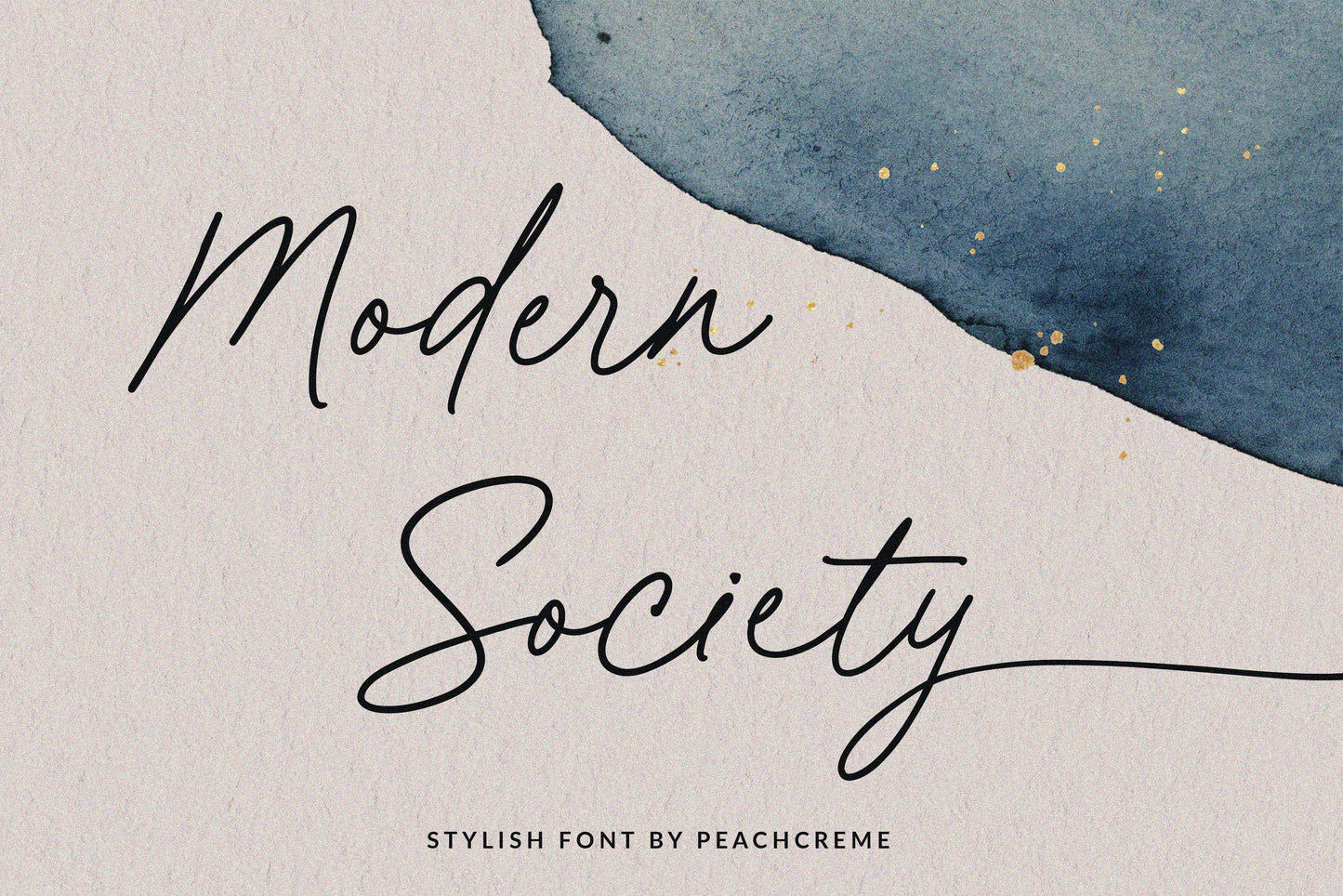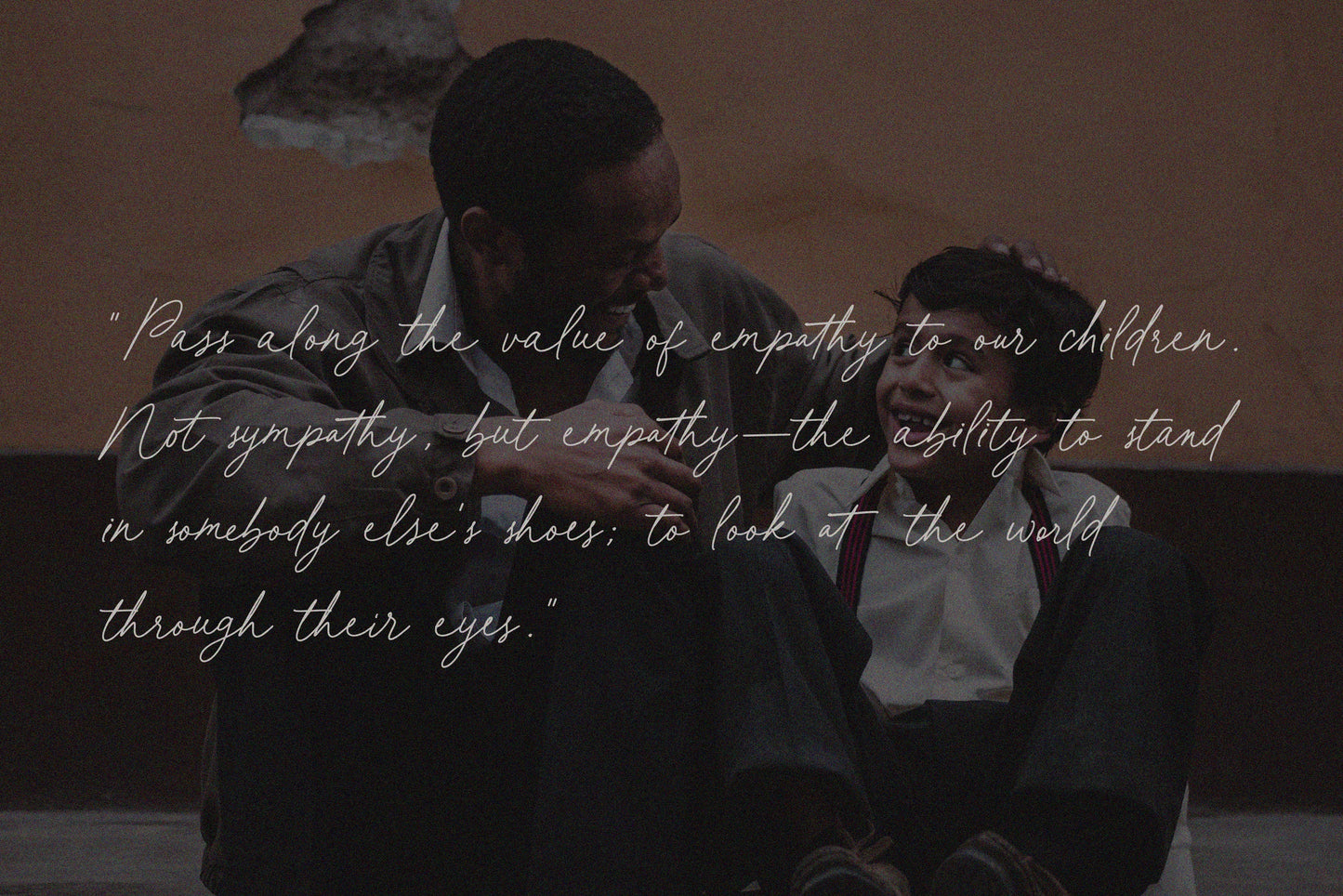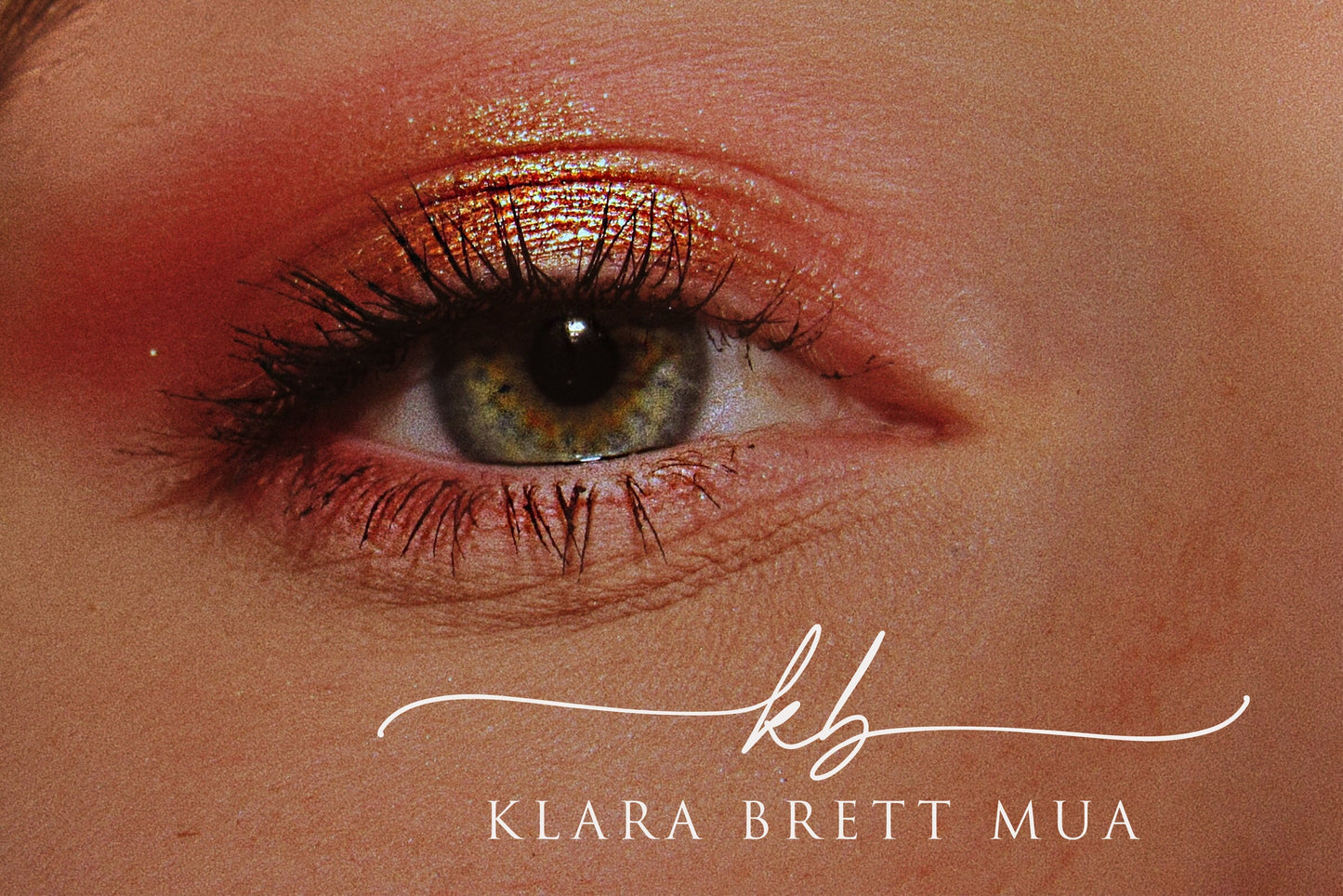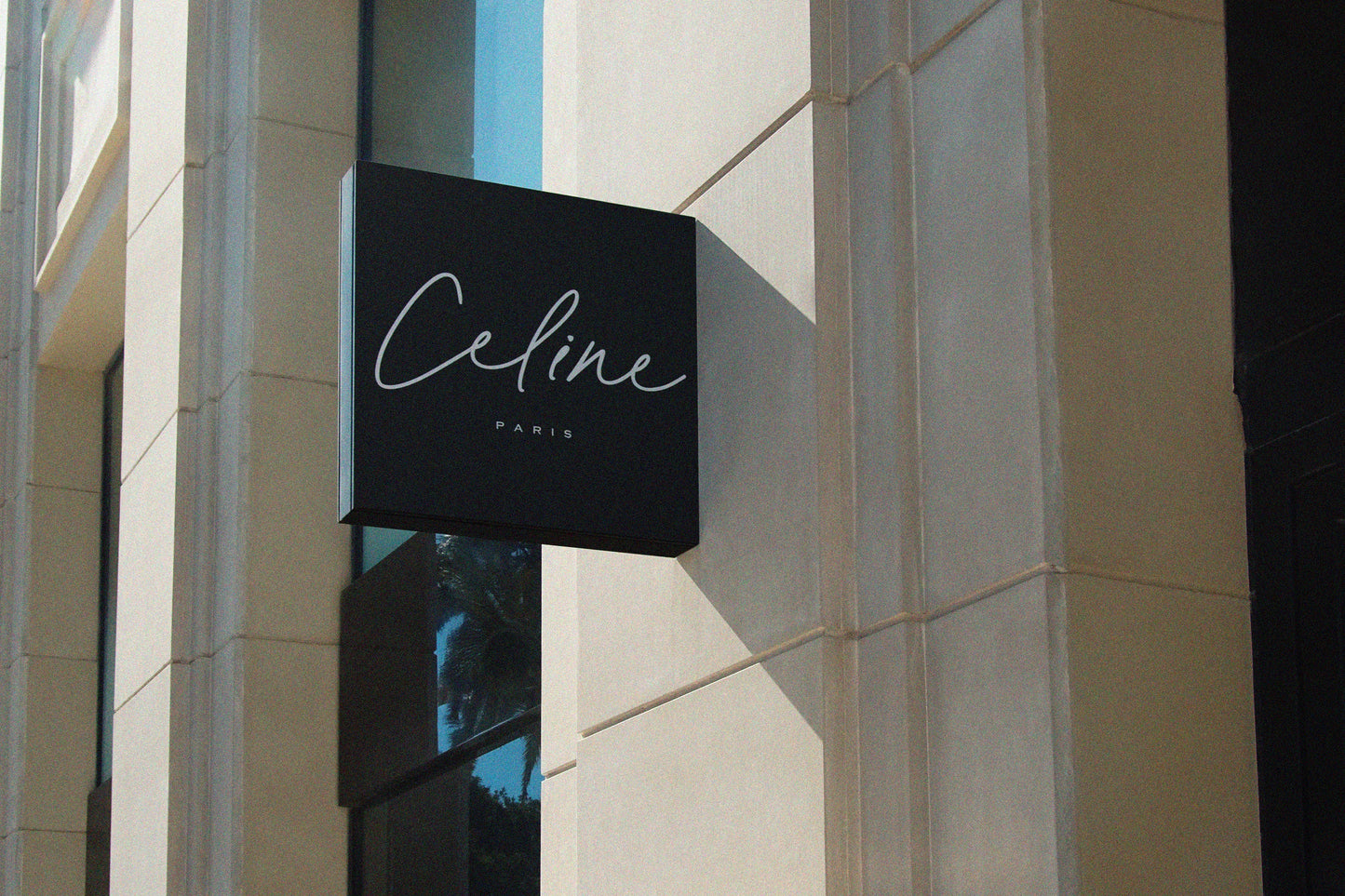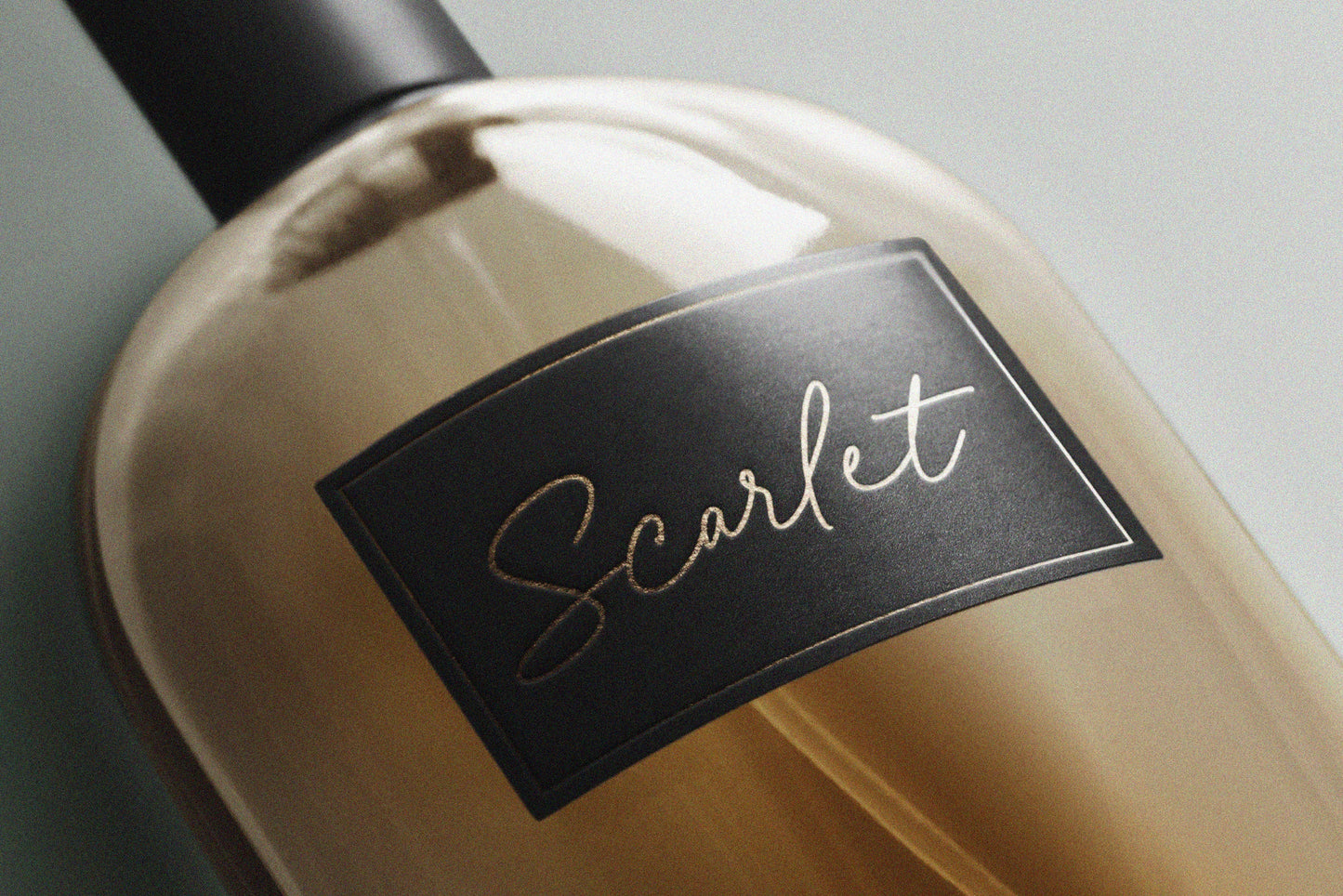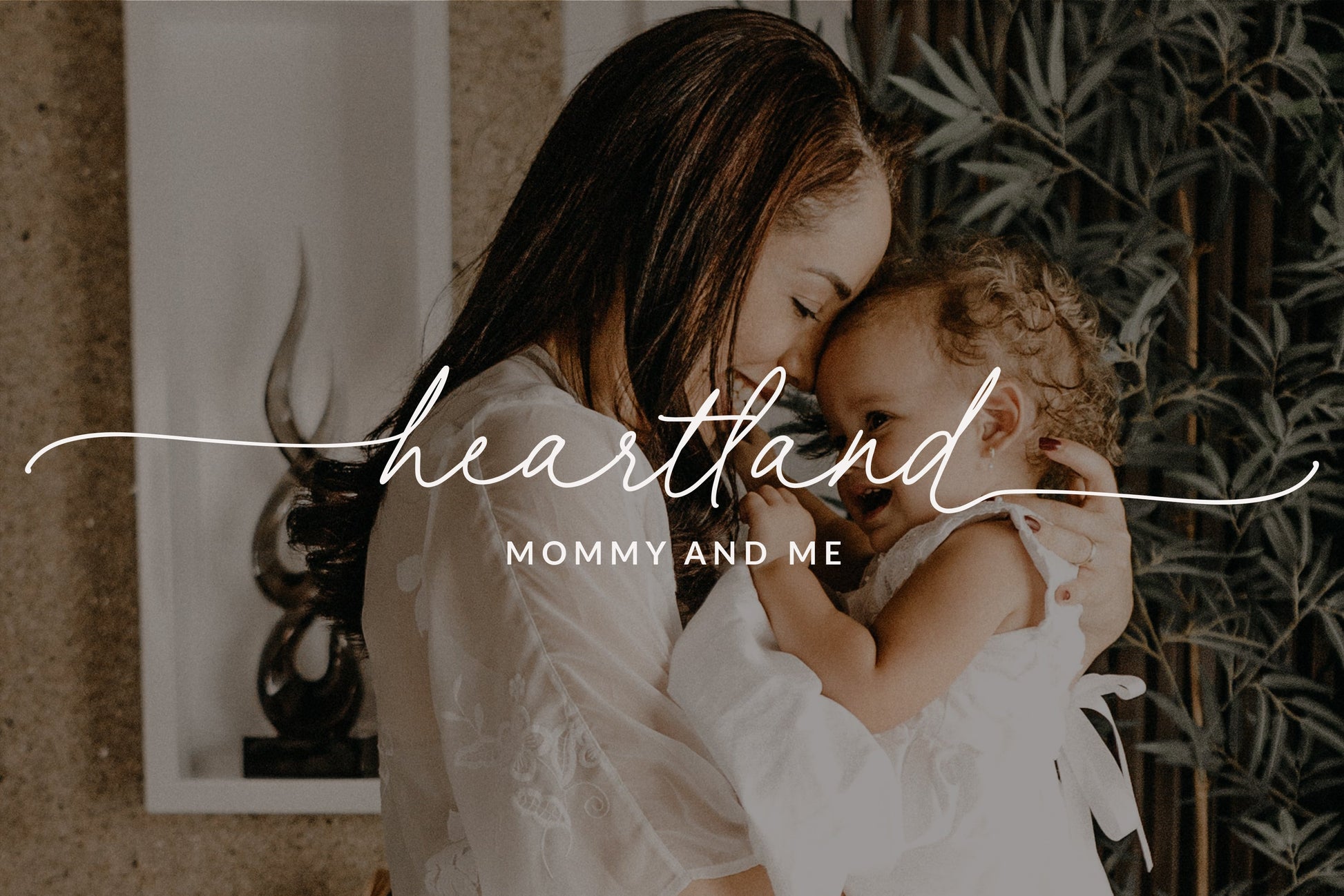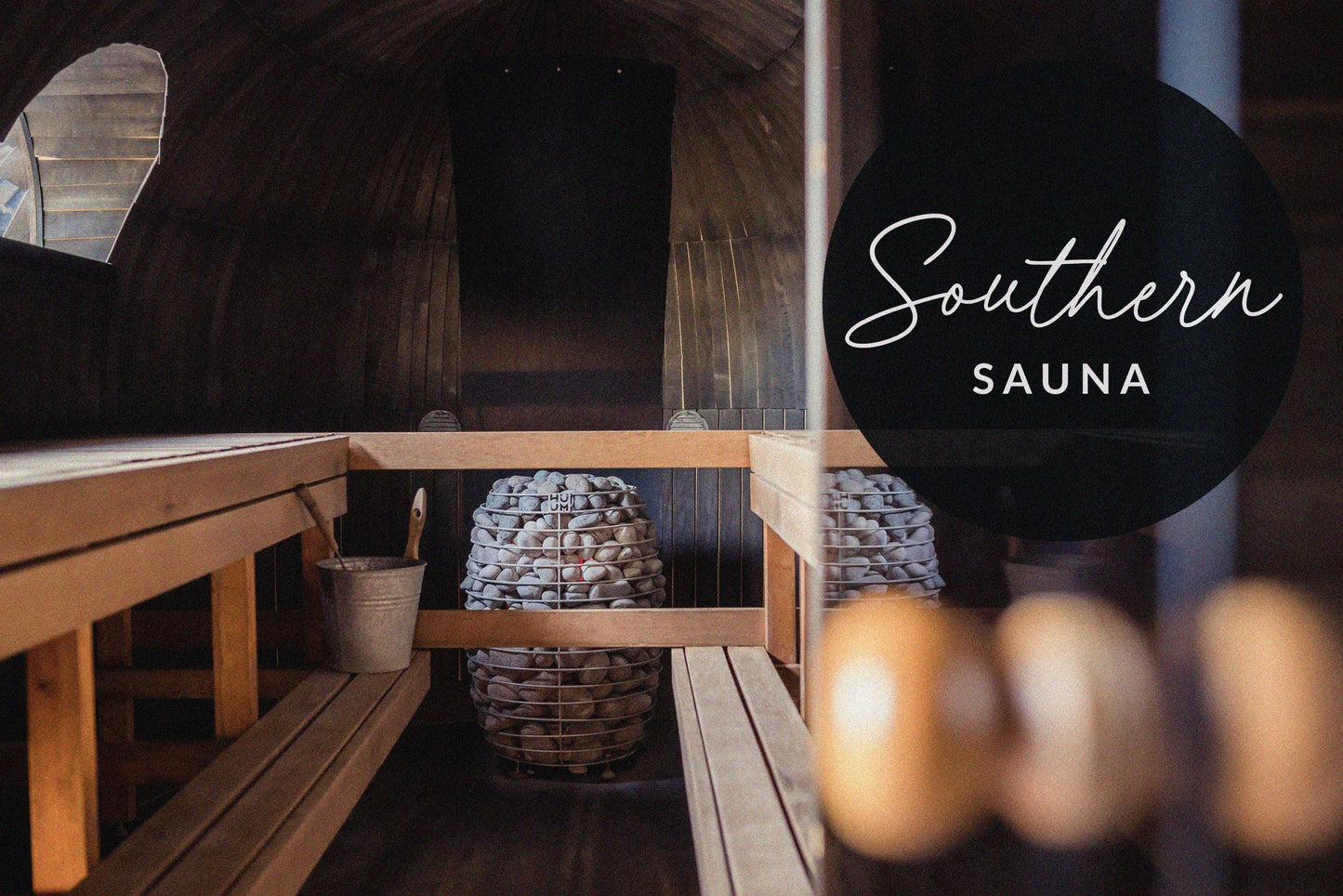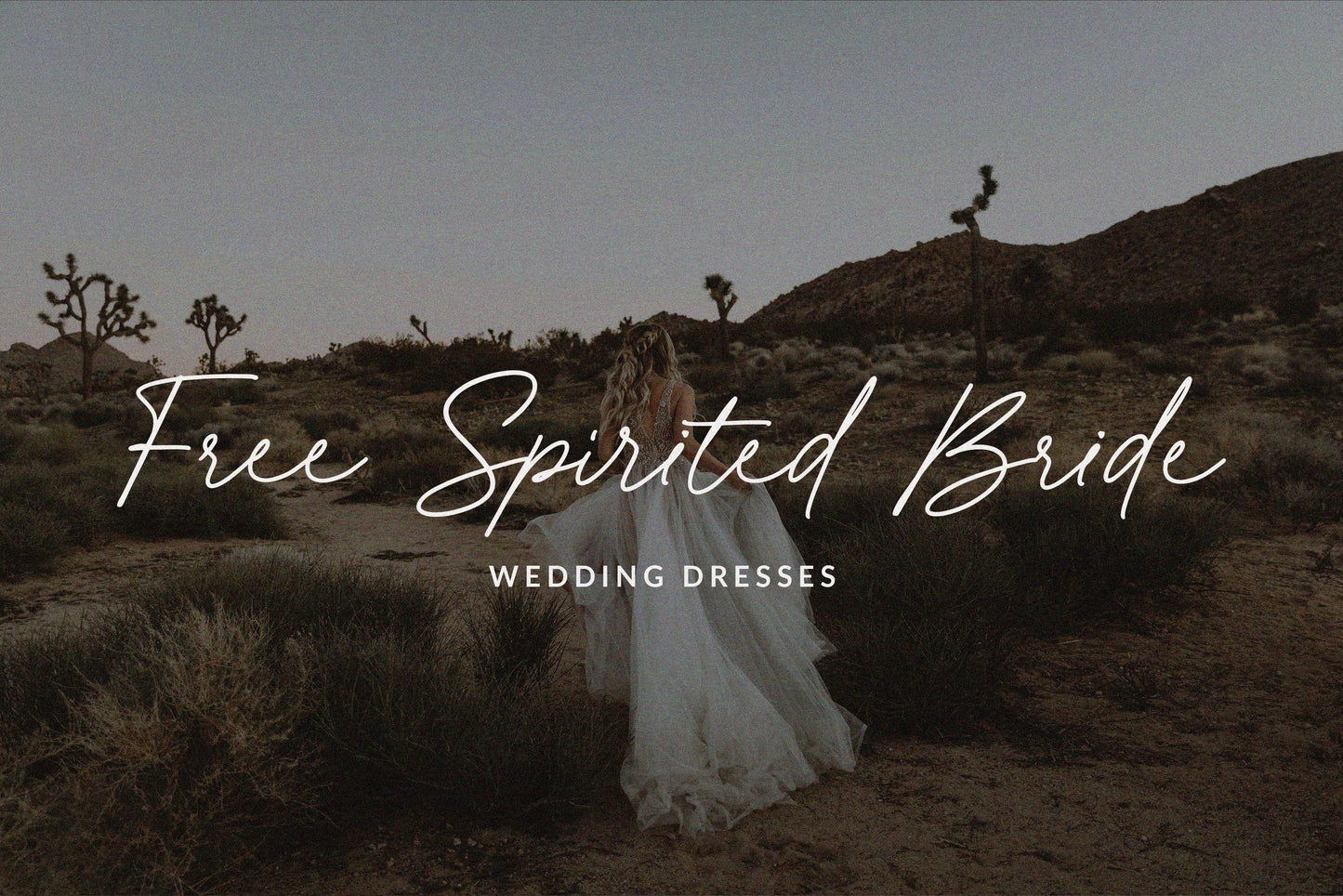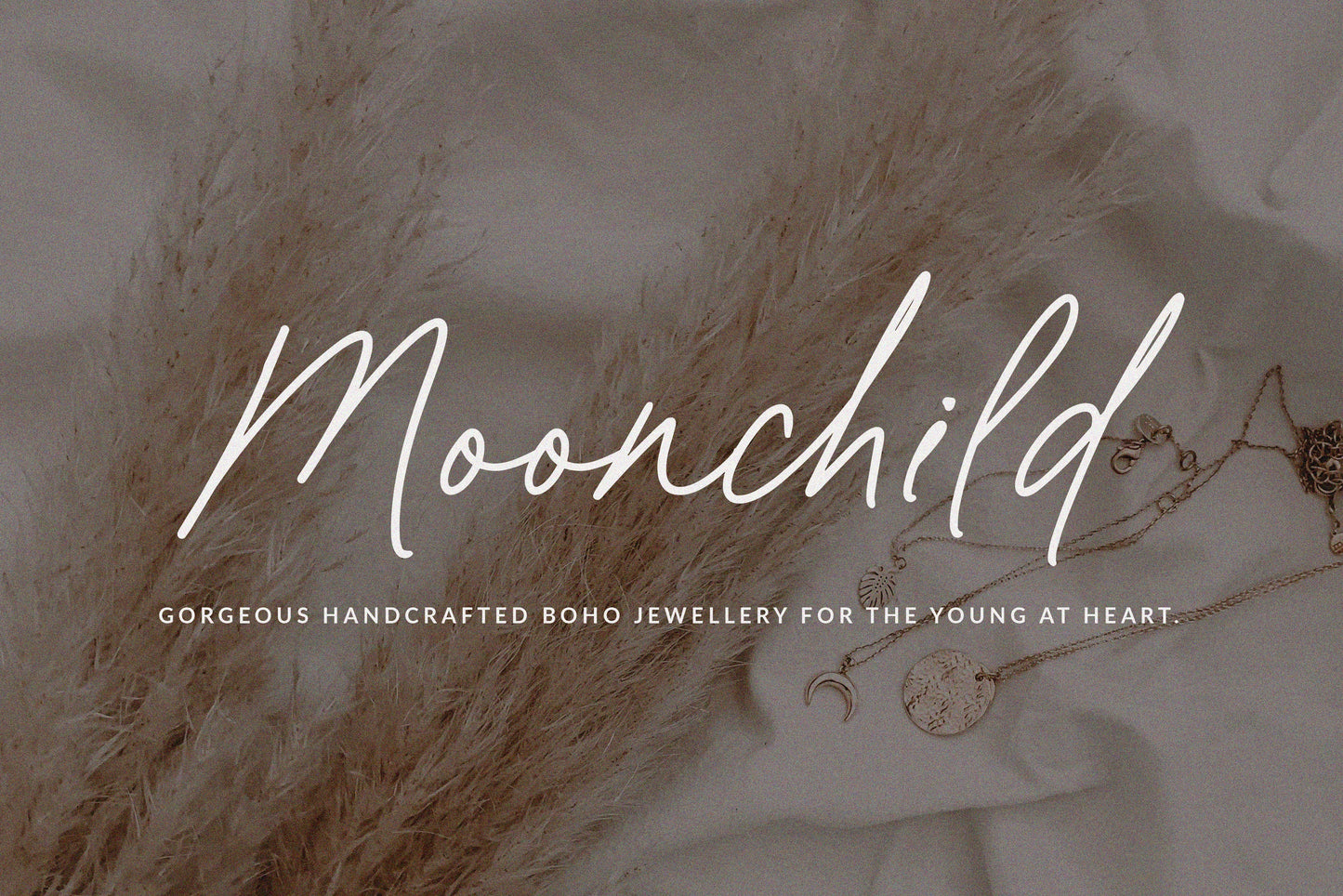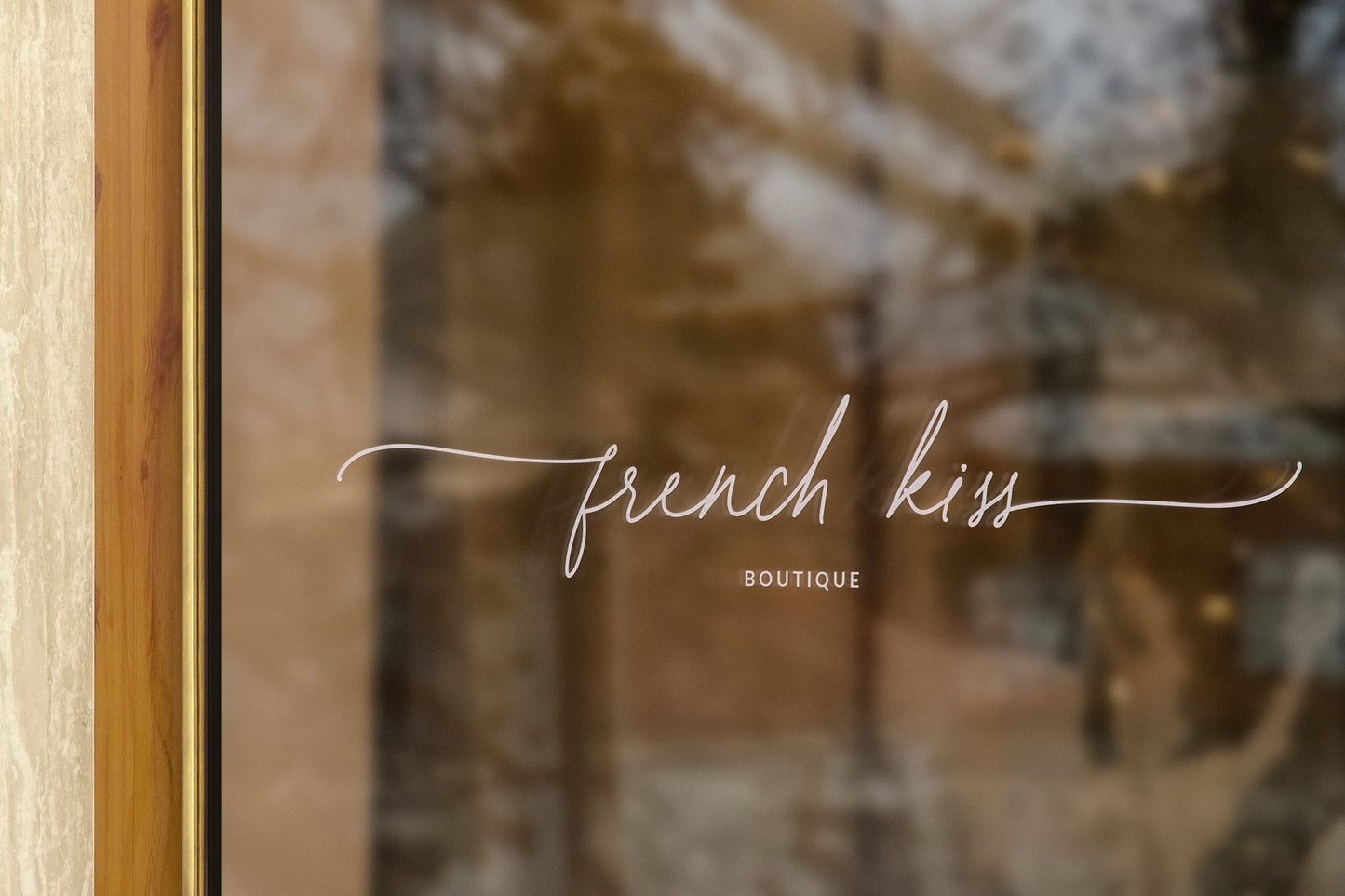
Modern Society // Stylish Font
Meet our brand new font “Modern Society“ - a classy font with a modern flair and a sleek ball pen flow. “Modern Society“ has adorable beginning and ending lowercase swashes to add a charming touch to any design. With all uppercase and lowercase letters, symbols, numerals, punctuation, and ligatures. “Modern Society“ works great for wedding designs, logos, stationery, signatures, quotes, cards, display text, and so much more.